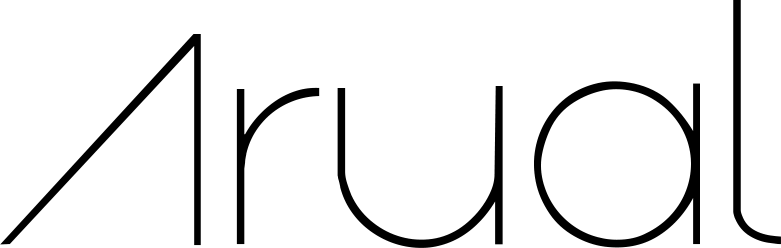
Arual Font
Designed byCurtis Mack
Arual is a friendly and modern sans serif font that can be an excellent option if you desire to give off approachable and playful vibes. This casual font is regarded as minimalist and modern which is still popular for its readability. This feminine tattoo font is suited to use in any main text, digital publications, websites, apps, user interface, and more.